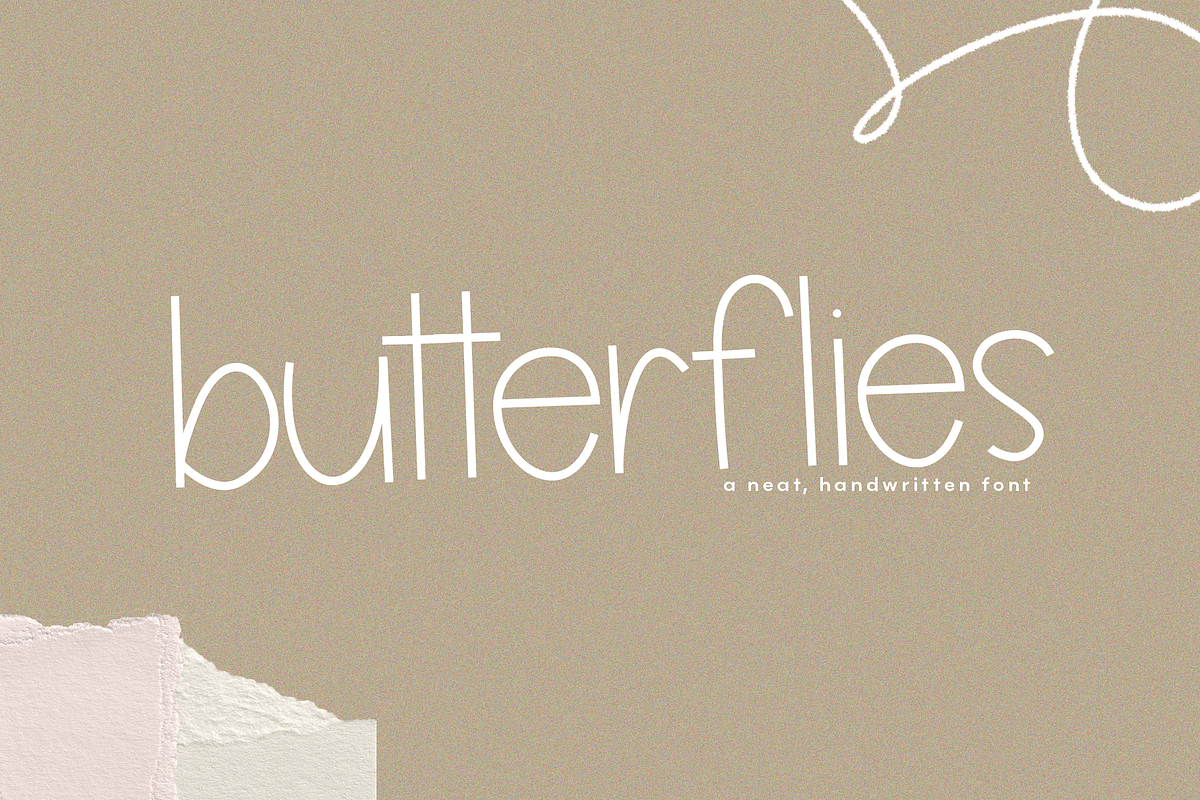
Butterflies - A Handwritten Font Free Download
Please note, to use this font for commercial purposes, you must purchase the full version. Butterflies is a delicate and elegant handwritten font that brings a personal, artistic touch to your designs. With its flowing, natural strokes and graceful letterforms, this font is perfect for creating invitations, logos, branding, and other creative projects. Whether you're designing for a wedding, a boutique brand, or a personalized event, Butterflies adds a refined, whimsical feel to your work. Test it out and enjoy free download access for personal use. Experience the graceful beauty of Butterflies - A Handwritten Font Free Download before purchasing the commercial license. Add a personal, artistic flair to your designs with Butterflies.